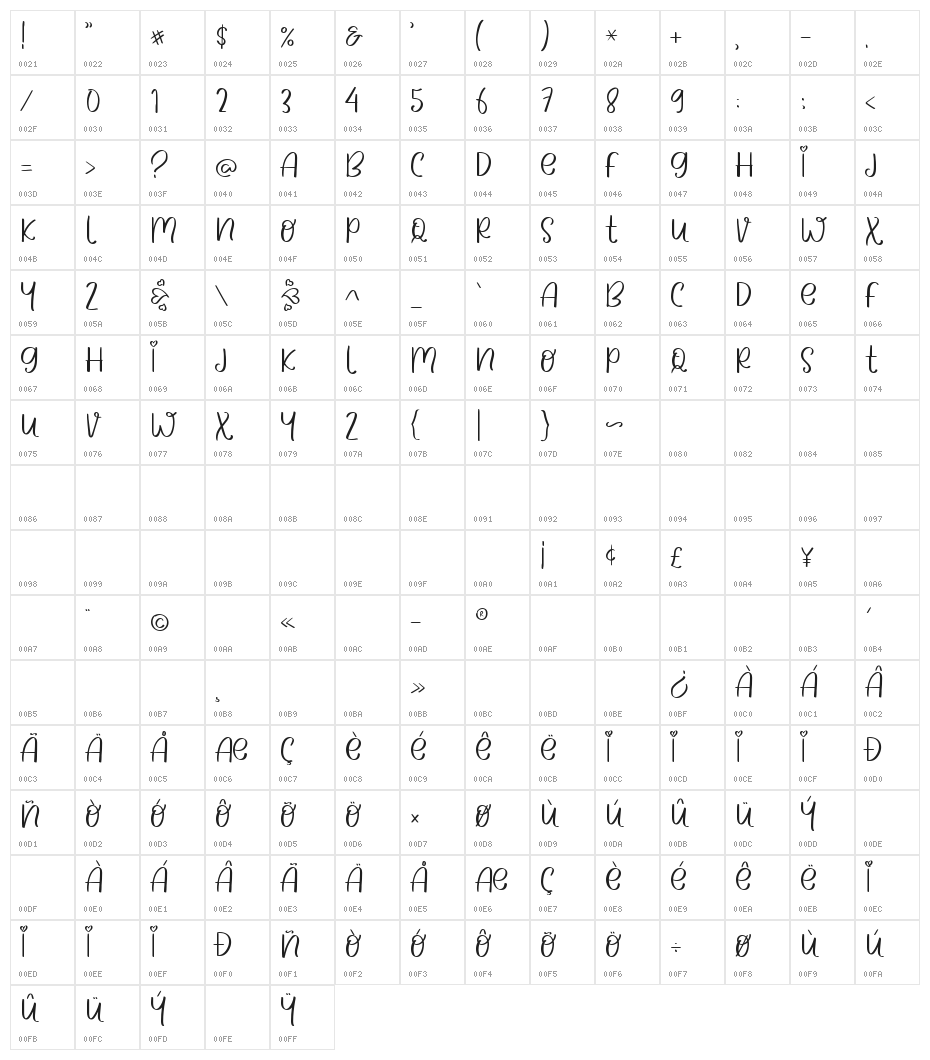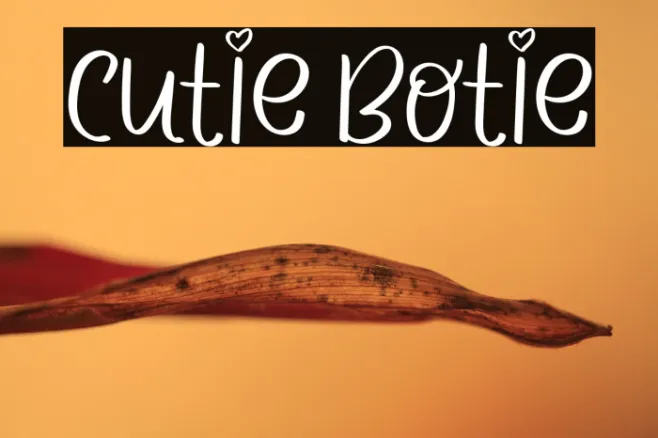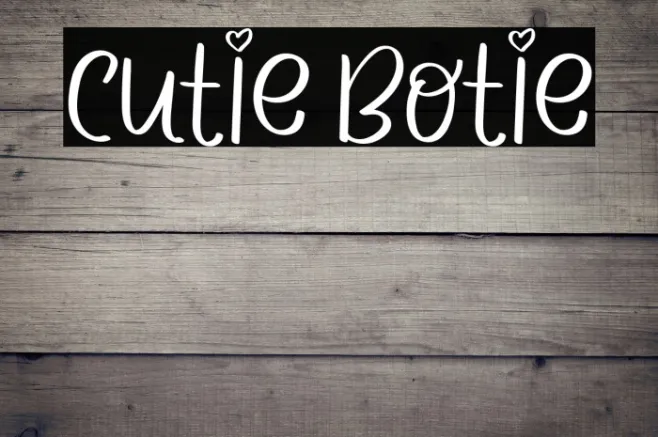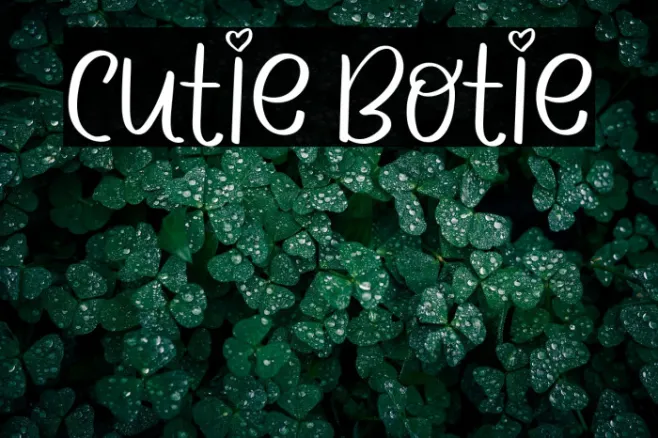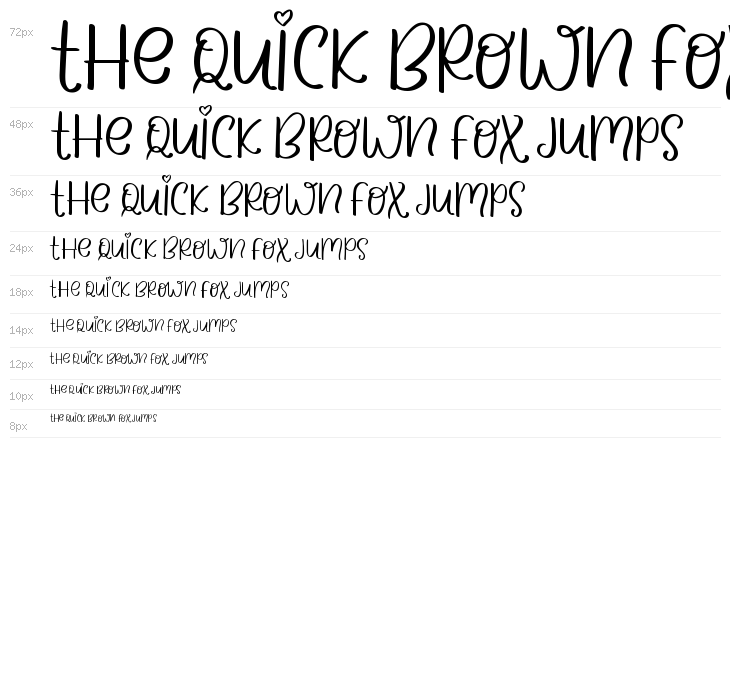
CUTIE BOTIE Font
CUTIE BOTIE Description
This playful and whimsical font features a handwritten style with a charming and friendly appearance. Each character is crafted with a smooth, flowing line that gives it a casual and approachable feel. The letters are slightly rounded, adding to the font's warmth and inviting nature. Notably, some characters include unique decorative elements, such as small hearts, enhancing its playful aesthetic. The font maintains consistent stroke thickness, providing a balanced and cohesive look across all characters. Its informal style makes it perfect for projects that require a touch of personality and creativity.